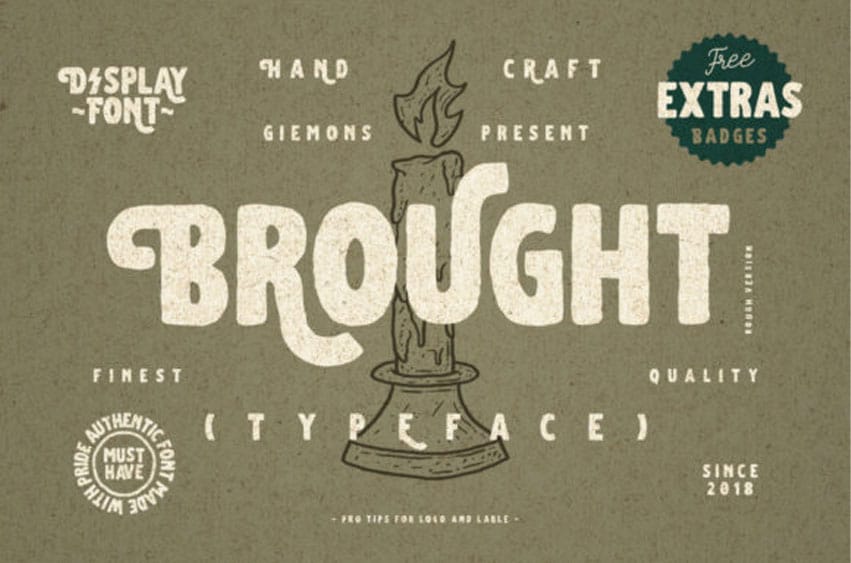
Brought Font Typeface is vintage, old school display Font. Can make it easier to convey the message in your design.
Use for awesome display, Logo, labeling, clothing, movie screen, poster, movie title, gigs, album covers, logos, and much more.